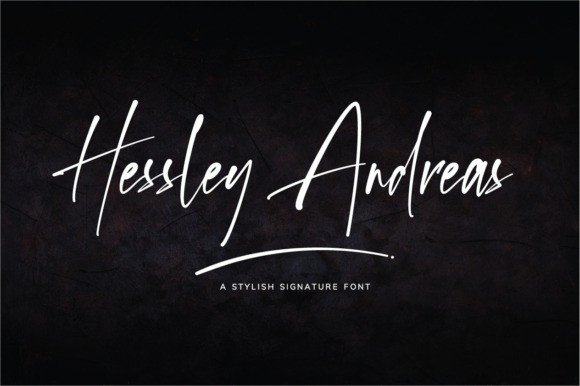
Hessley Andreas Script Font
Hessley Andreas is a magical script font carefully created with a touch of elegance. It features a varying baseline, smooth lines, gorgeous glyphs, and stunning alternates.